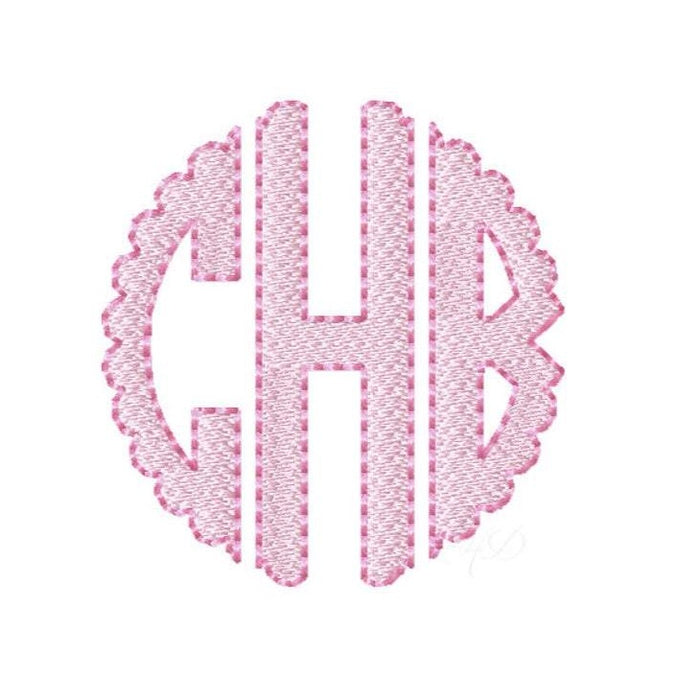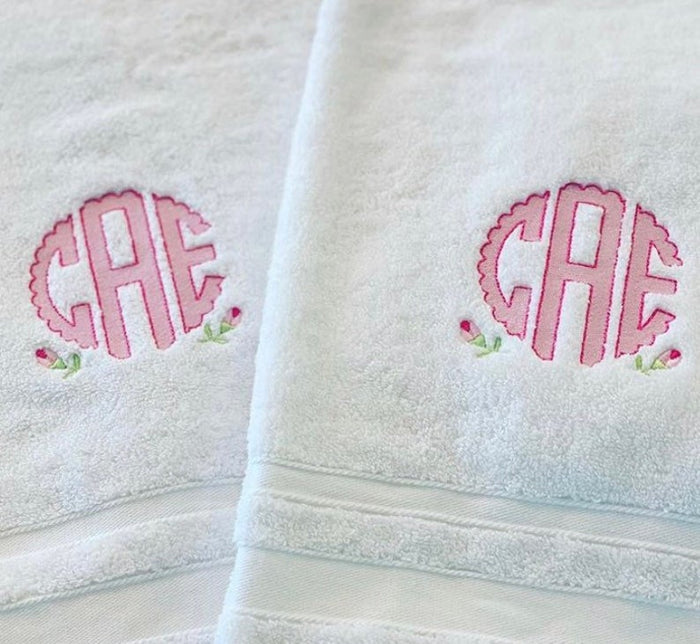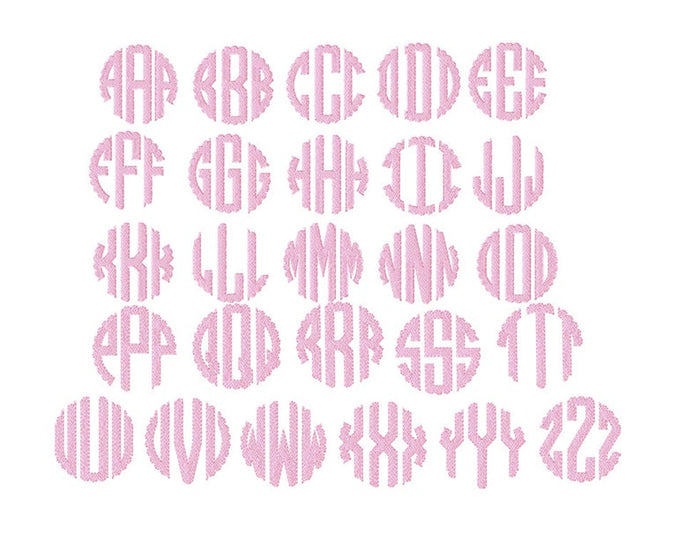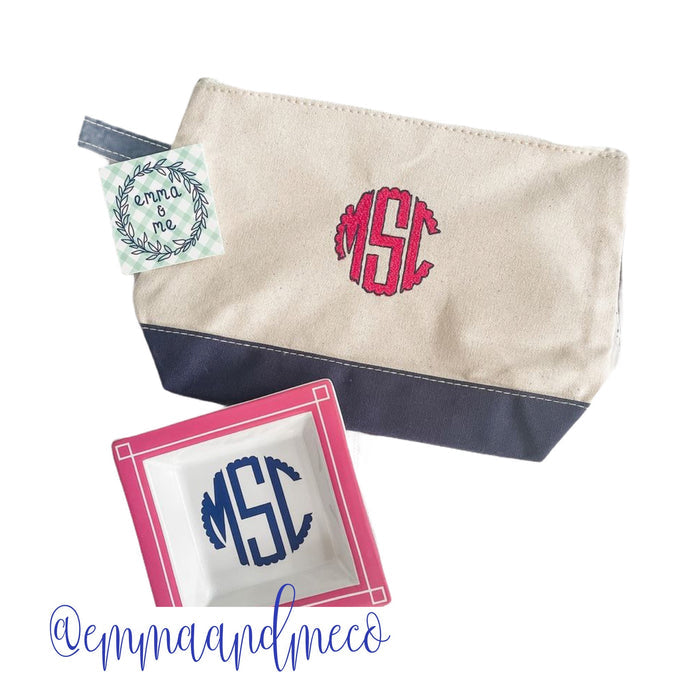
Scalloped Circle Monogram Fill Font
Unlock your creativity with our Scalloped Circle Monogram Fill Font, a premium embroidery font set that includes 78 individual letter files. Each letter features a charming plain fill with a running stitch outline, available for Right, Center, and Left positions, all compatible with a 4x4 hoop.